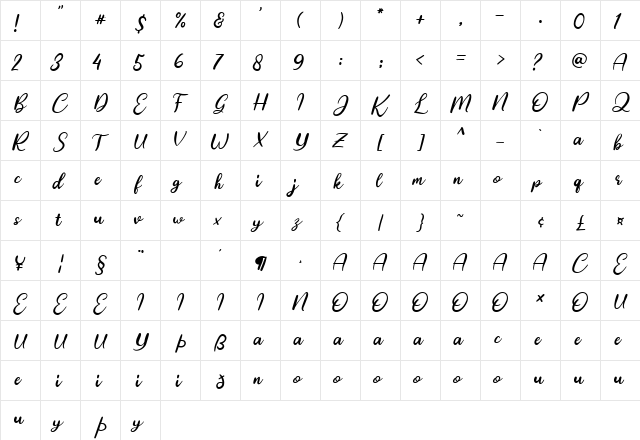
Just Dream Regular
| Designer | Jos Gandos |
Design Context for Just Dream Typeface
Just Dream is a composed and adaptable typeface that performs quietly and consistently across a wide range of design contexts.